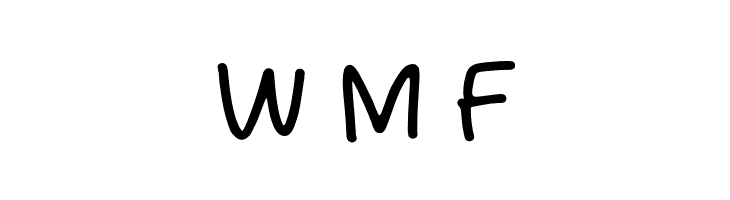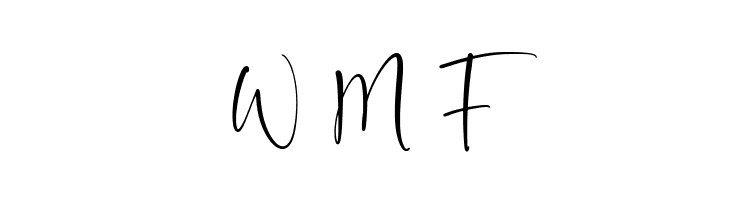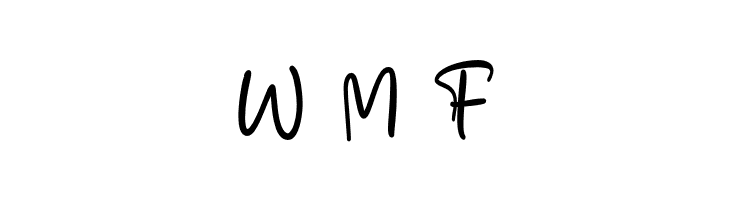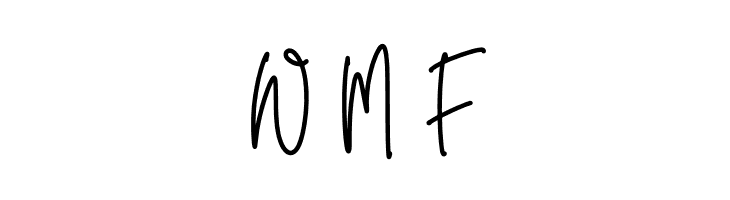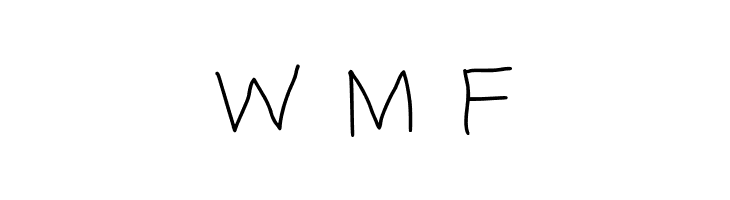
A playful, casual handwritten font with a doodle-like style.
A playful, casual handwritten font with flowing strokes and a whimsical touch.
Casual and elegant handwritten script font.
Handwritten script font with a casual, flowing style.
A playful, handwritten font with tall, narrow, and irregular strokes.
A friendly handwritten font with a casual, informal appearance.
A bold, retro script font with a playful, hand-drawn style.
Playful handwritten script font.
Elegant, handwritten cursive script with high contrast and connected strokes.
A casual, handwritten cursive font with smooth, flowing lines.
A playful, handwritten font with tall, slender letters and a whimsical charm.
A bold, hand-drawn font with a playful and adventurous spirit.
A dynamic and expressive handwritten font with fluid strokes.
A bold, playful handwritten font with thick strokes and a casual style.
A modern, handwritten-style font with tall, narrow letterforms and subtle irregularities.
A playful, handwritten-style font with bold, rounded characters.
A playful, informal handwritten font with uneven strokes.
A dynamic, expressive handwritten font with irregular, spontaneous strokes.
A casual, handwritten font with a personal and informal style.
A bold, handwritten-style font with a playful and informal appearance.
A lively, cursive script font with elegant loops and a handwritten feel.